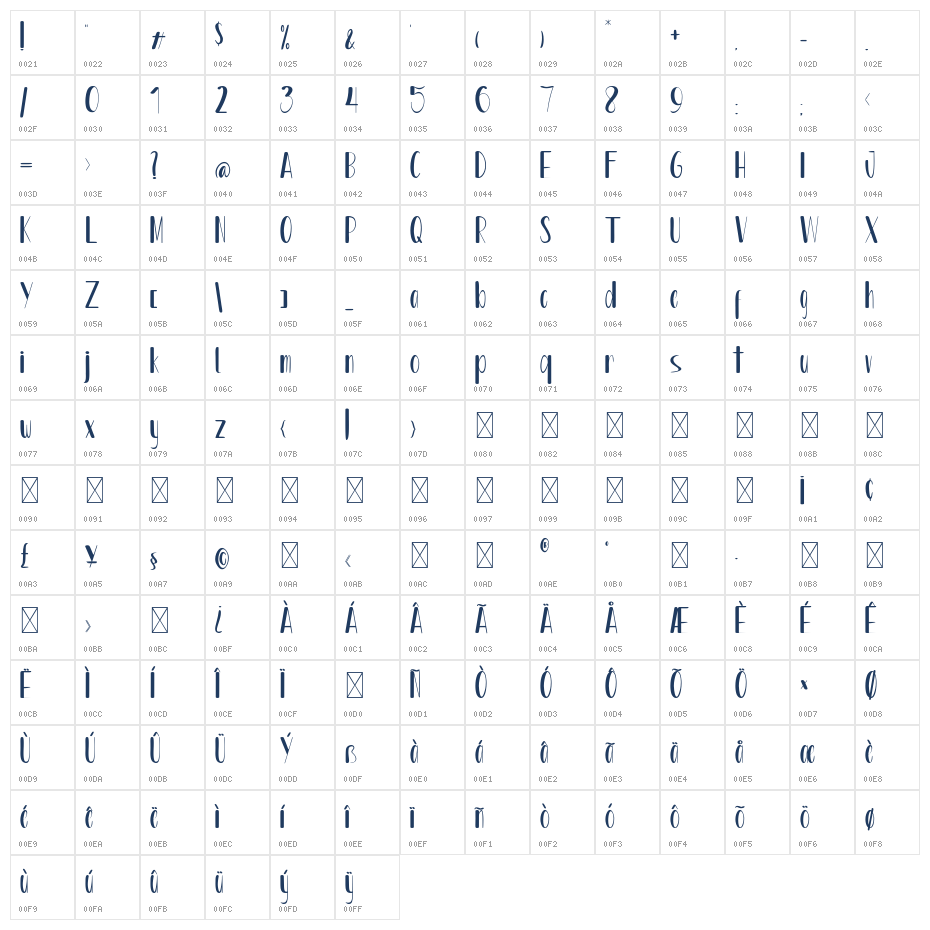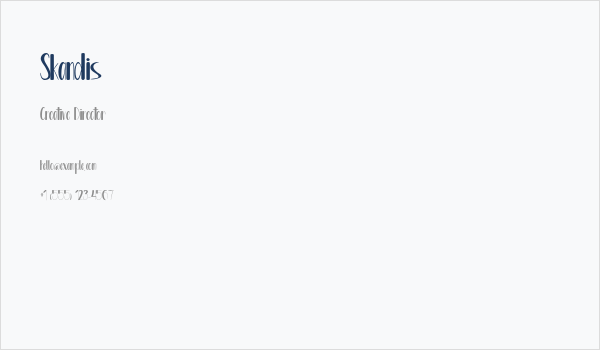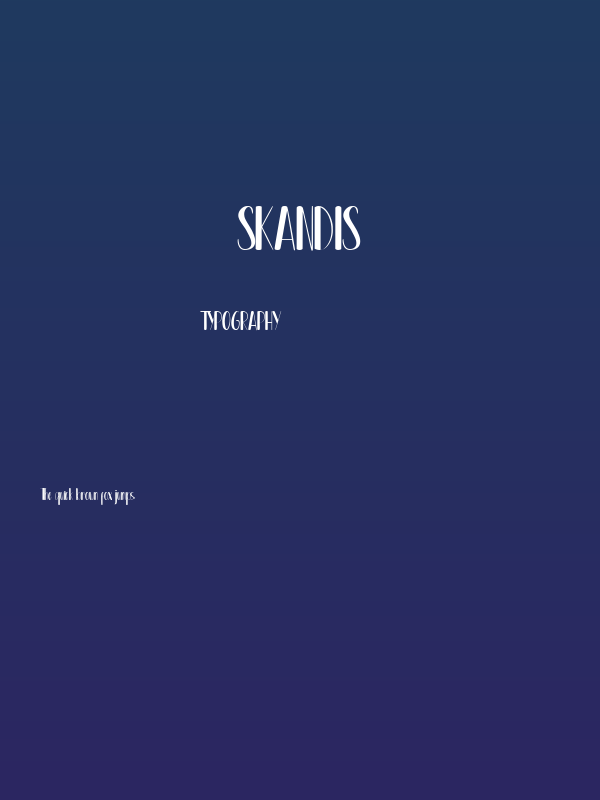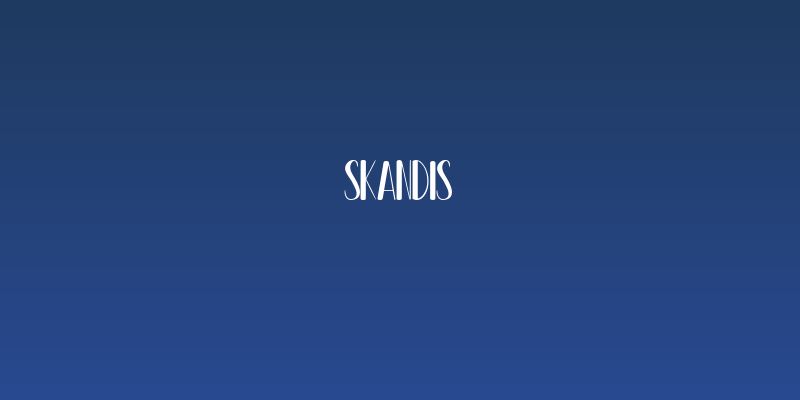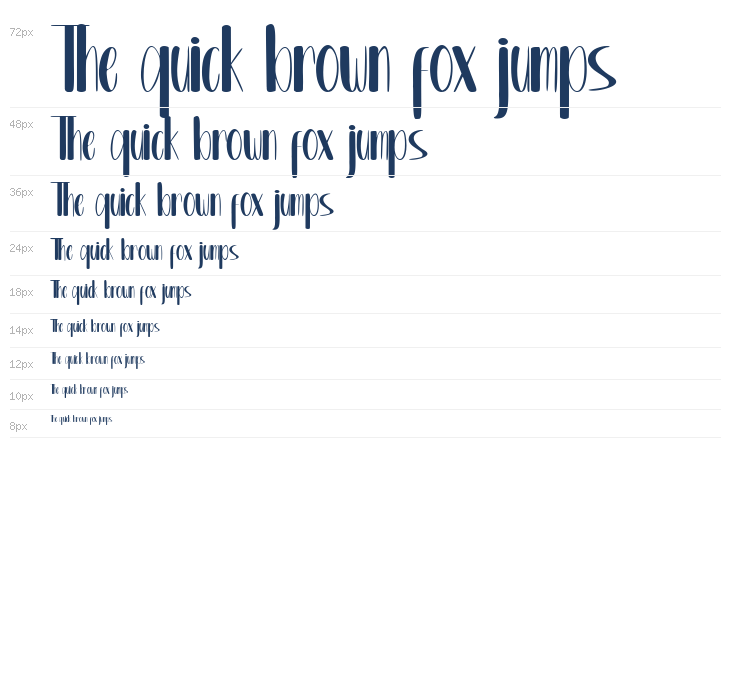
Skandis Font
Skandis Description
This font features a clean and modern design with a balanced structure. The characters are crafted with precision, offering a harmonious blend of straight lines and subtle curves. The uppercase letters present a strong and authoritative presence, while the lowercase letters maintain readability and elegance. The numerals are clear and consistent, making them suitable for various applications. Special characters are distinct and well-integrated, enhancing the font's versatility. Overall, this font exudes a professional and contemporary feel, making it ideal for a wide range of design projects.
| Proposed Projects | Ideal for corporate branding, editorial design, web interfaces, and advertising materials. |